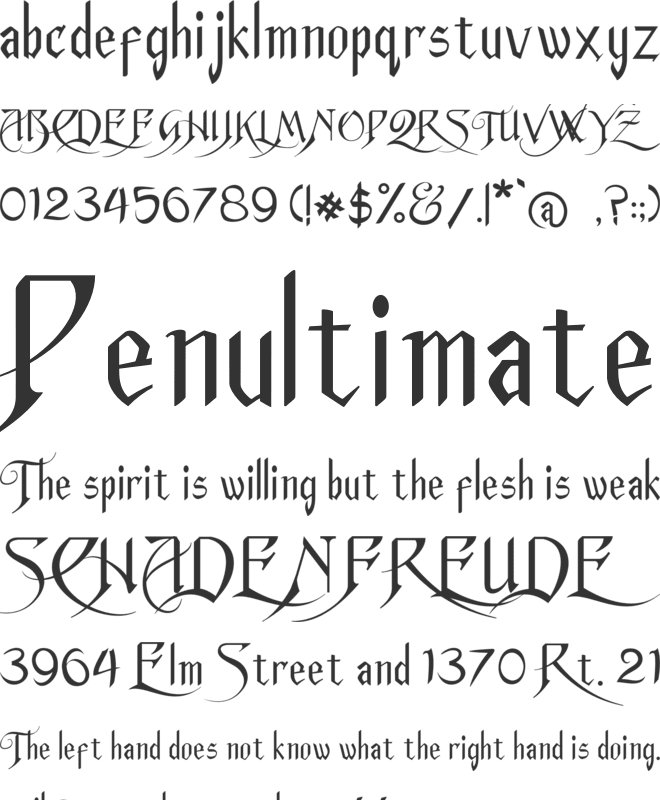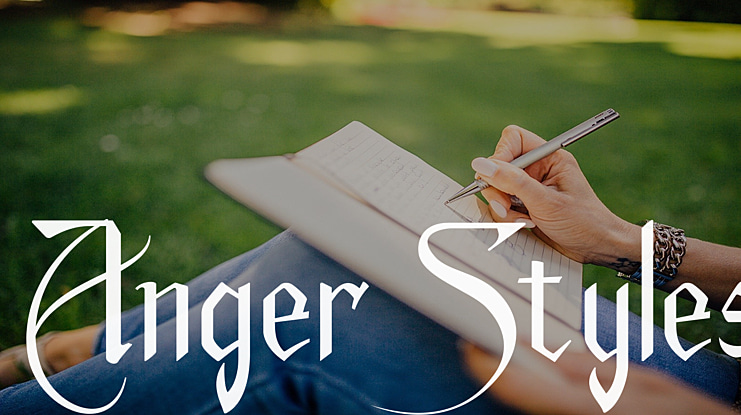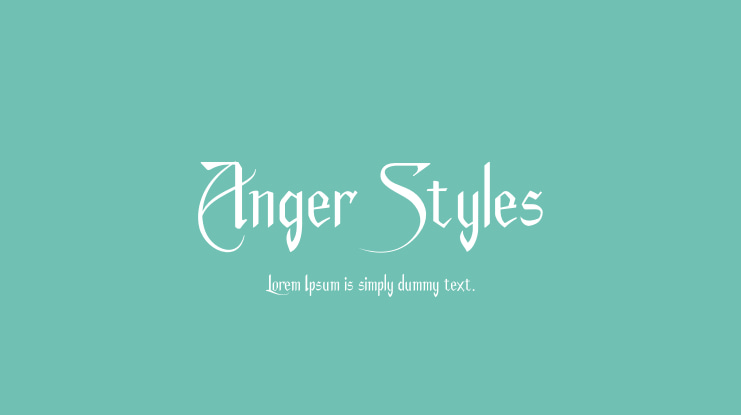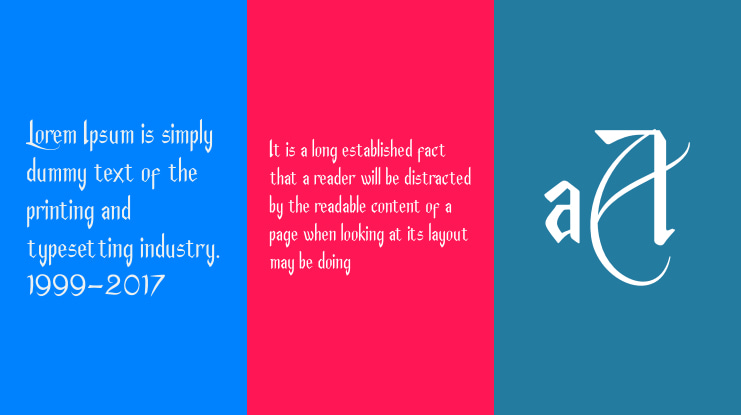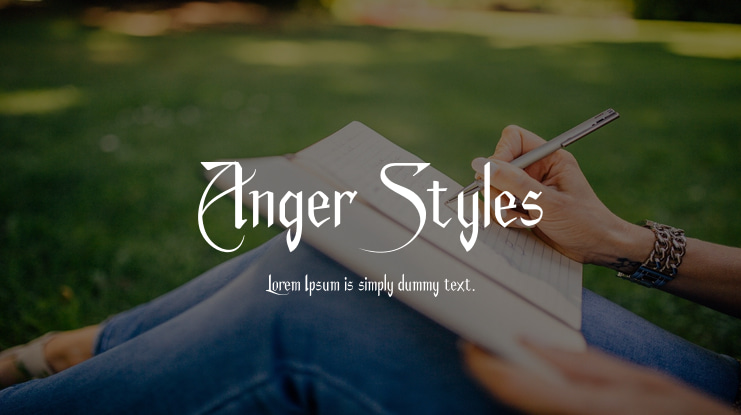
Anger Styles Font Family
Omaikraf Studio
Anger and Wrath is a latin typography with an extra styles of fire ornaments. This set of fonts can be your alternative option to your lettering design, posters, flyers, invitations, and other displayed products.